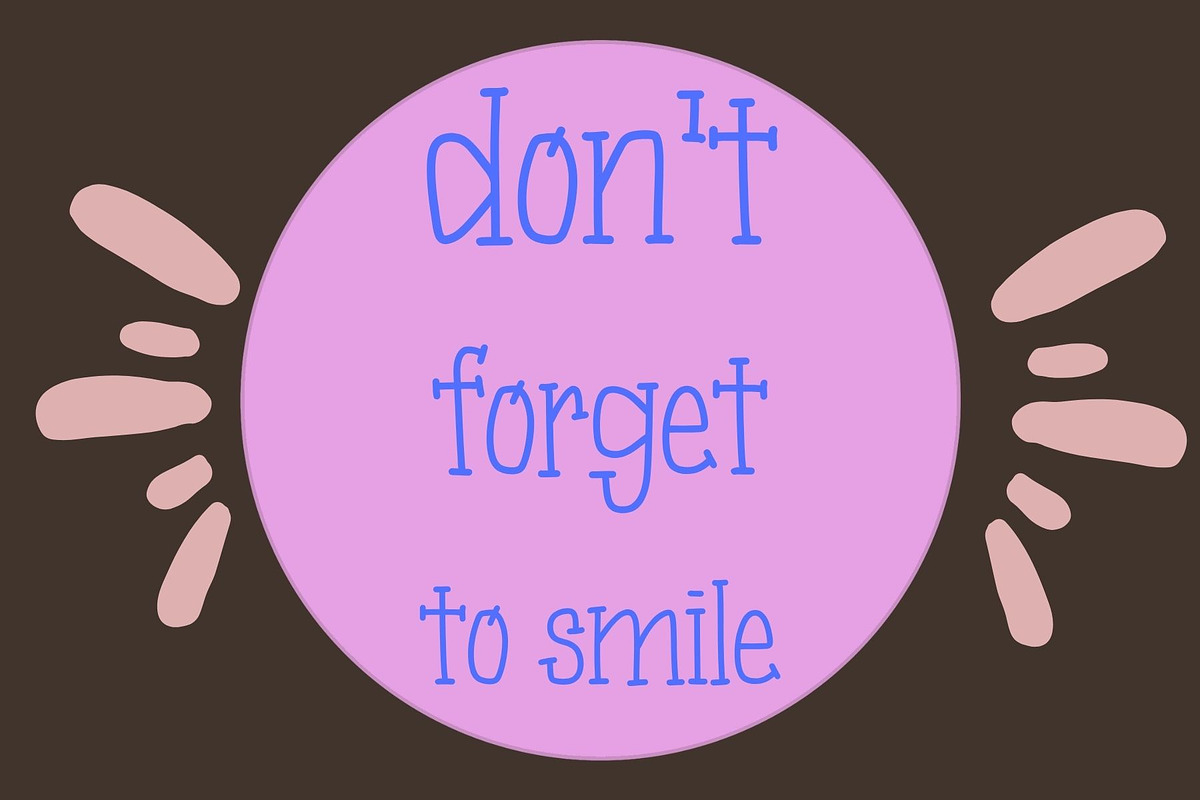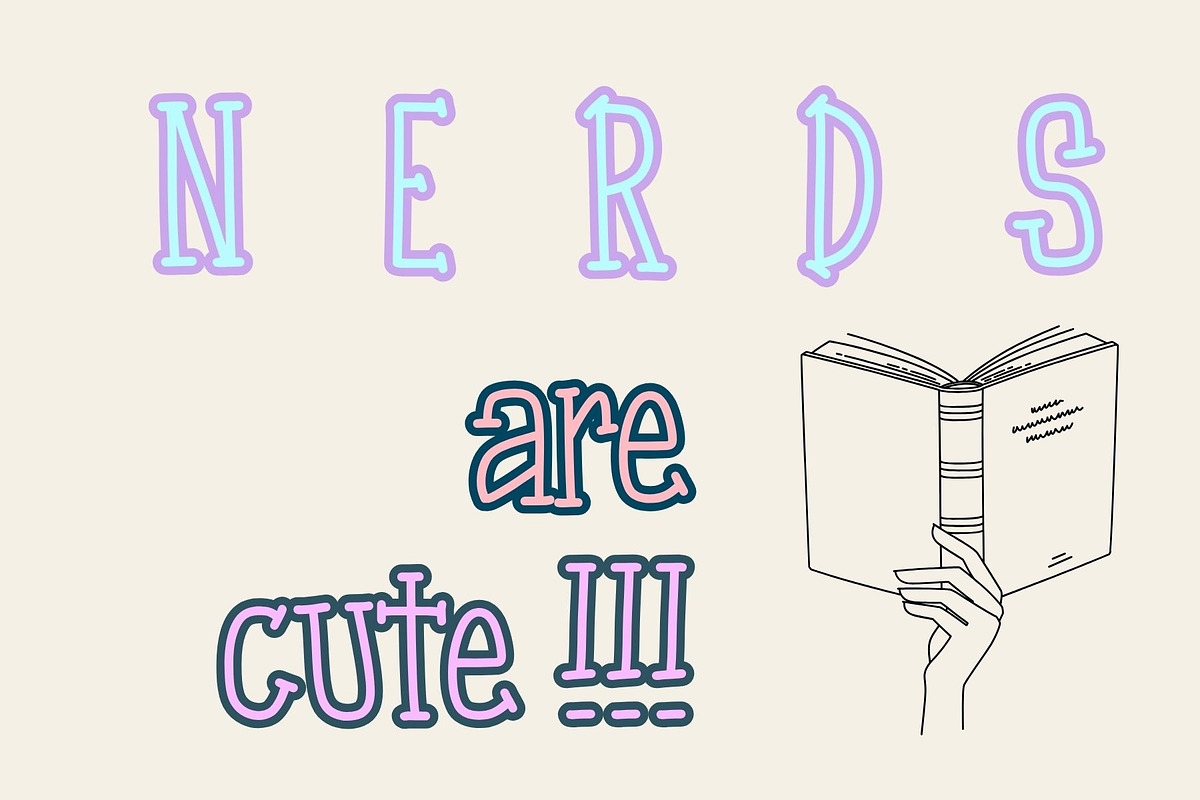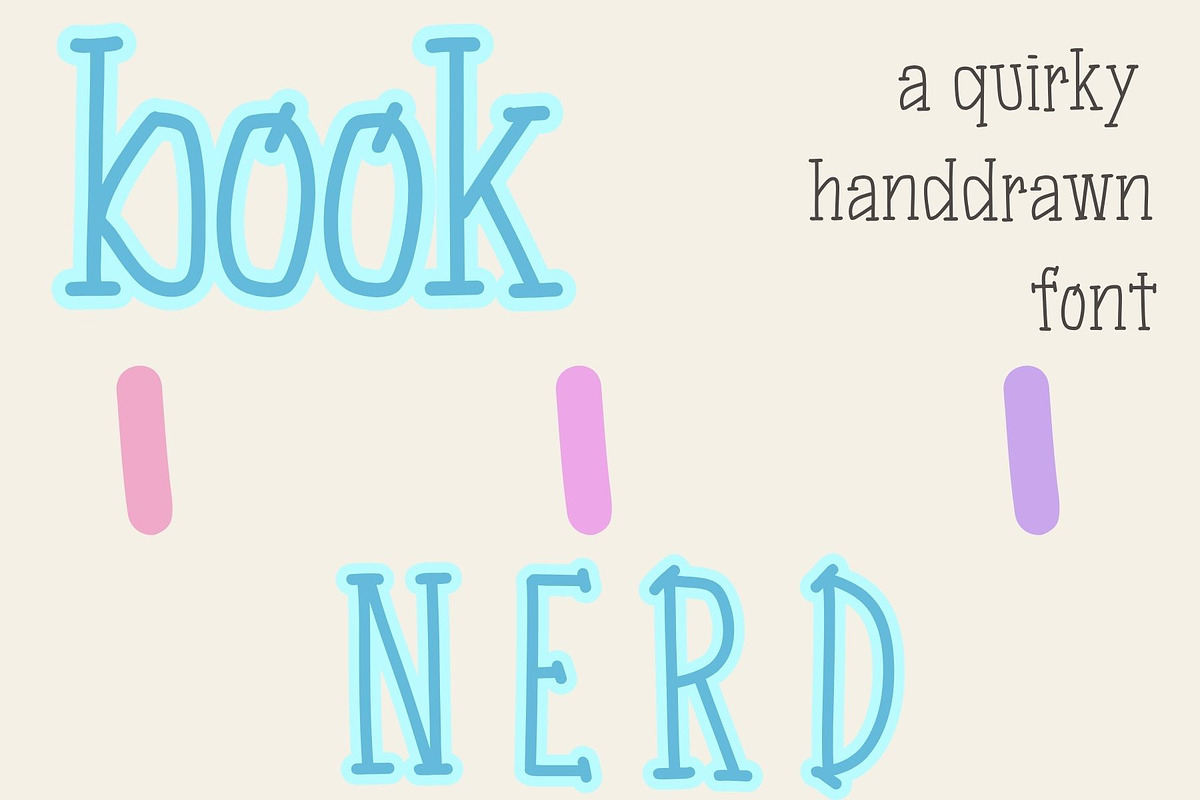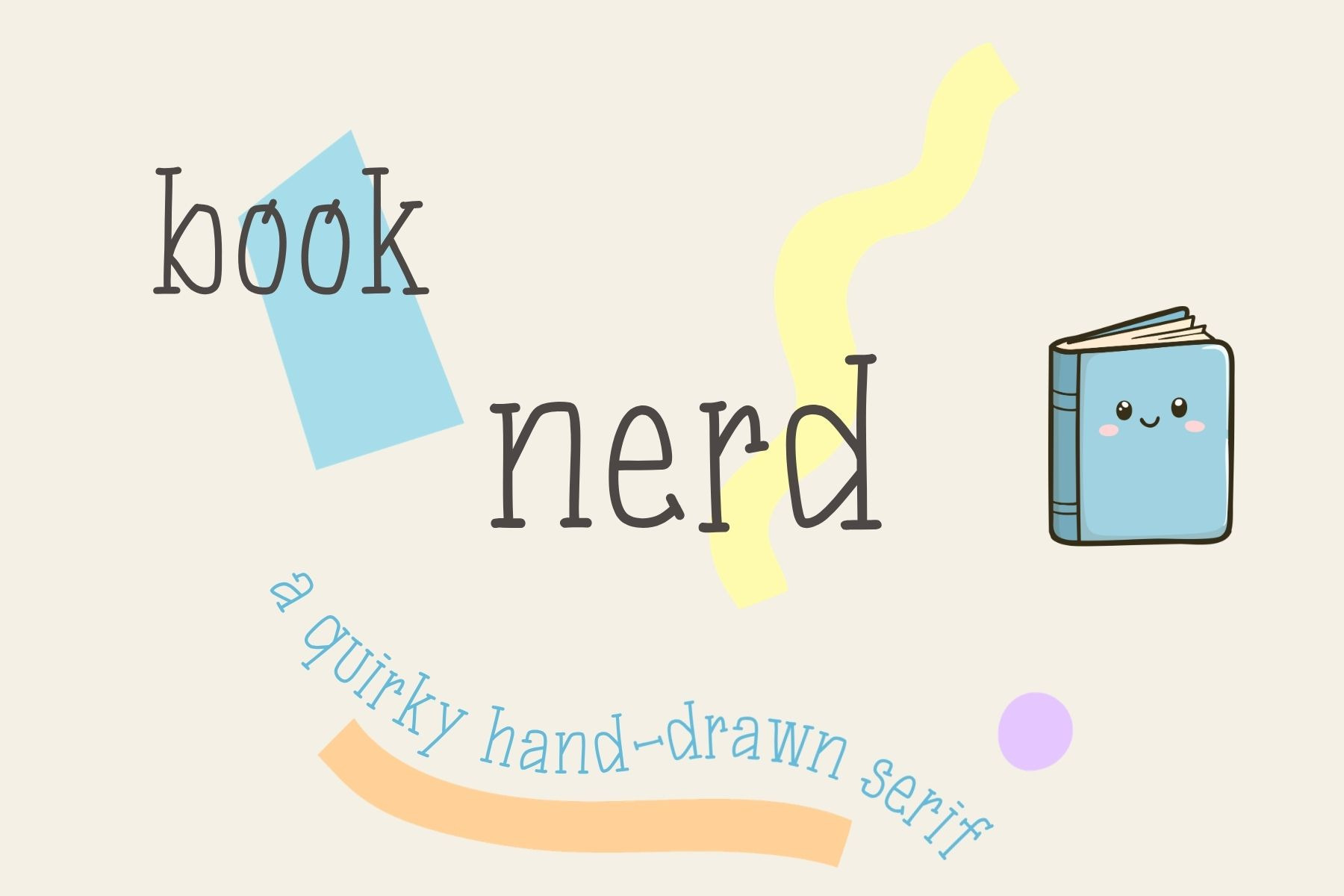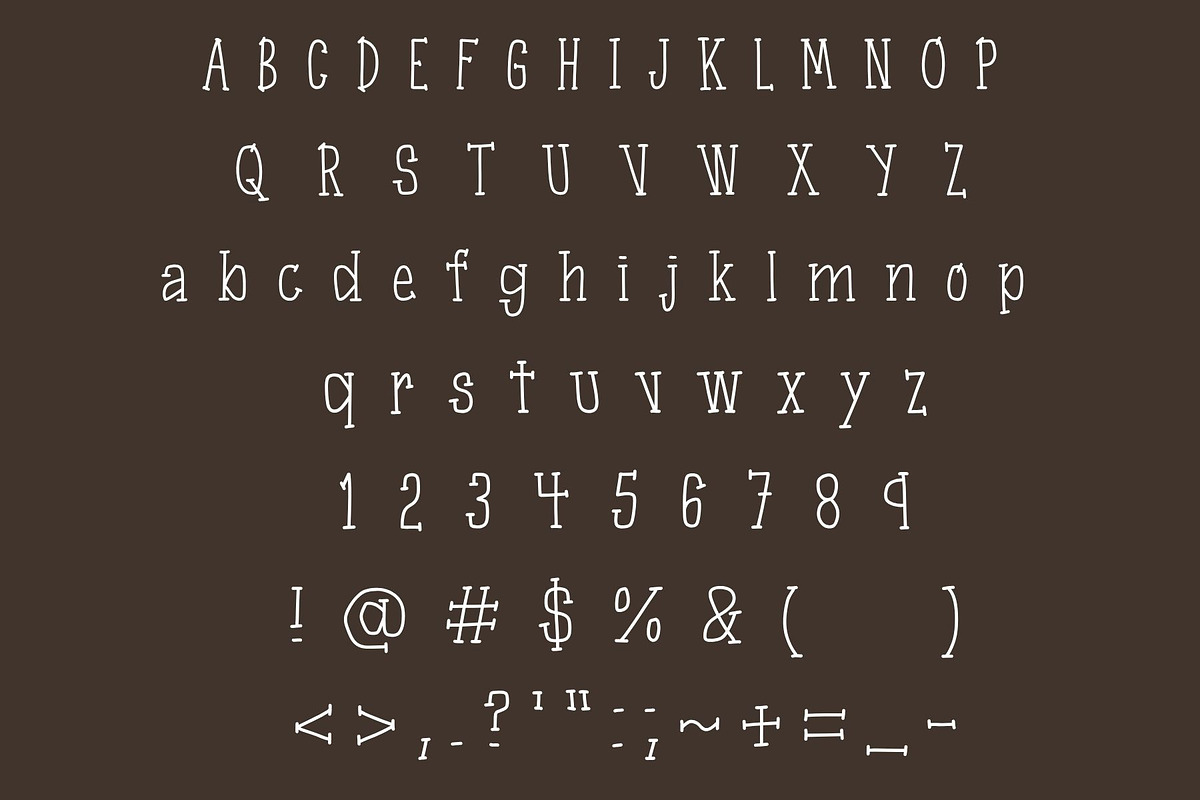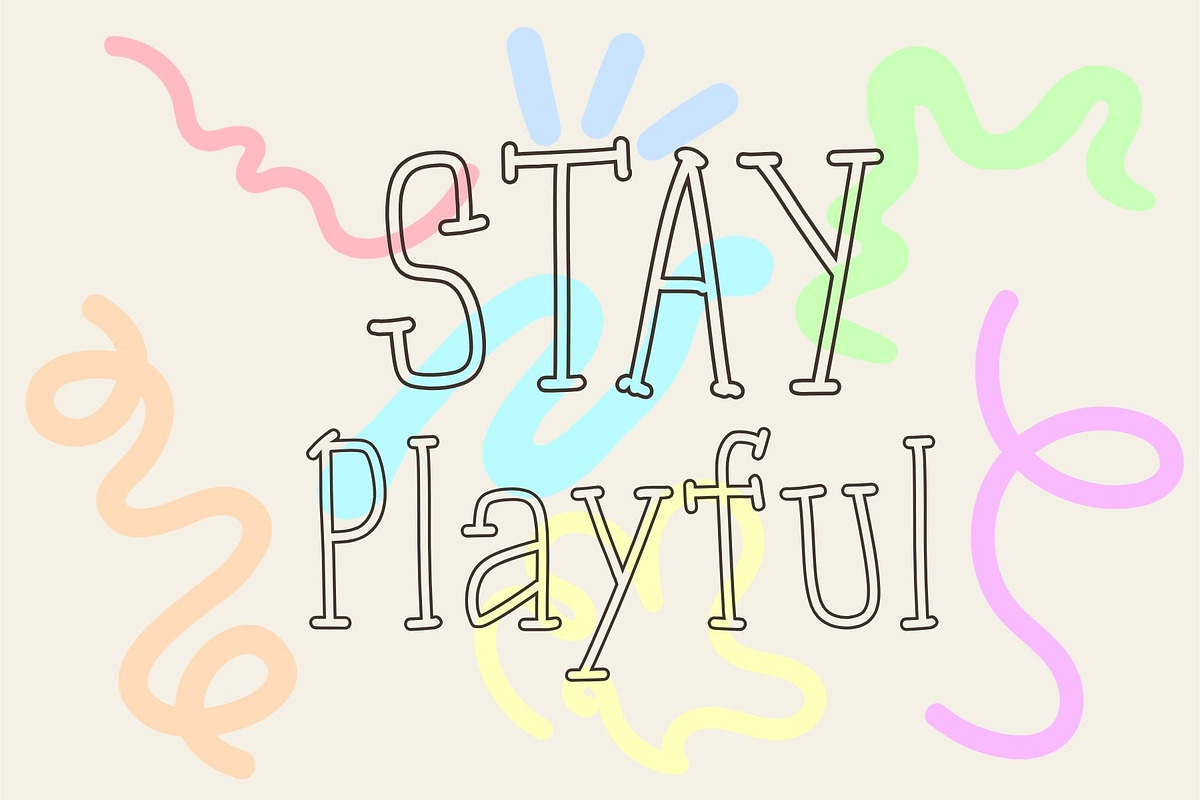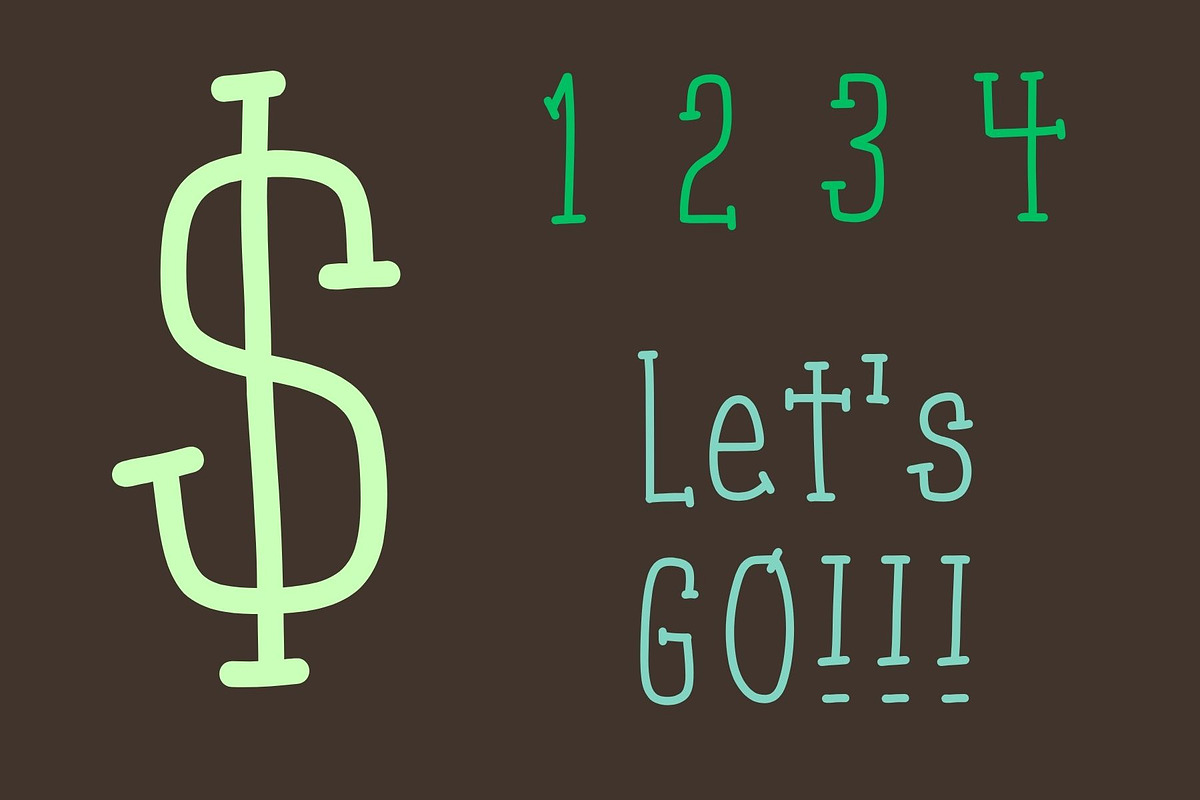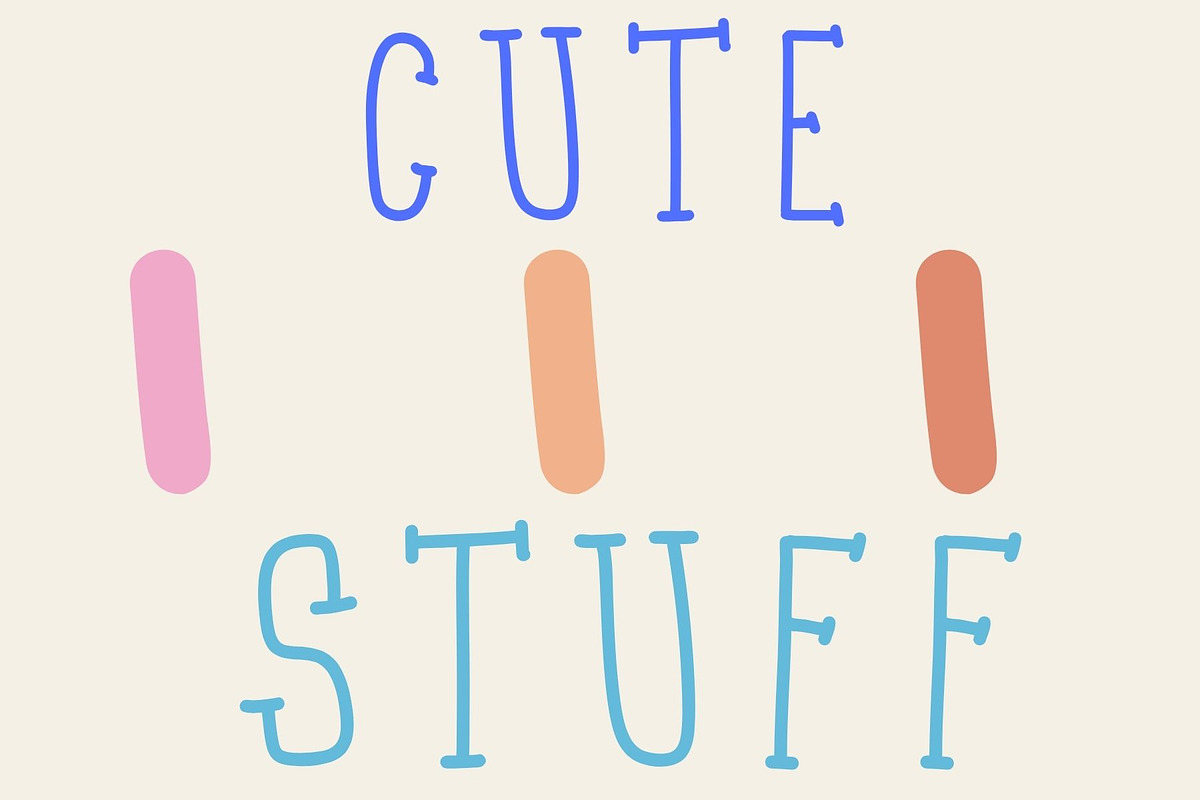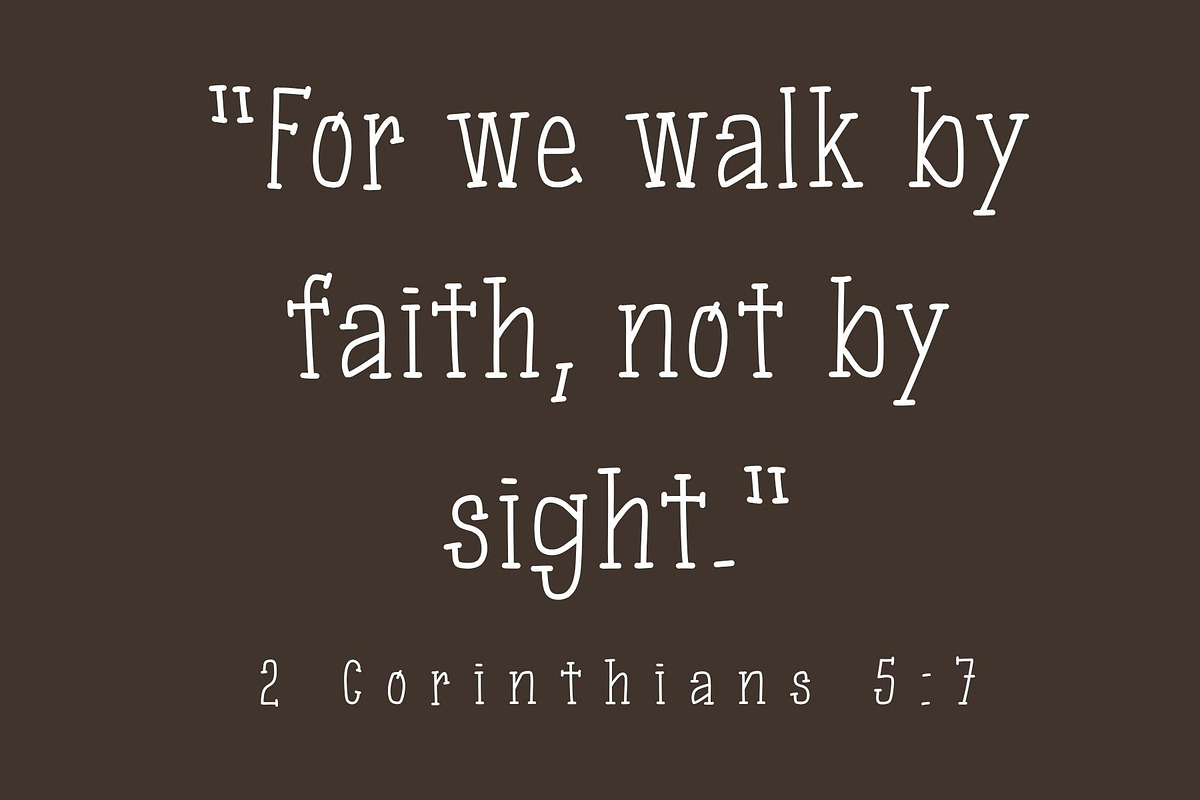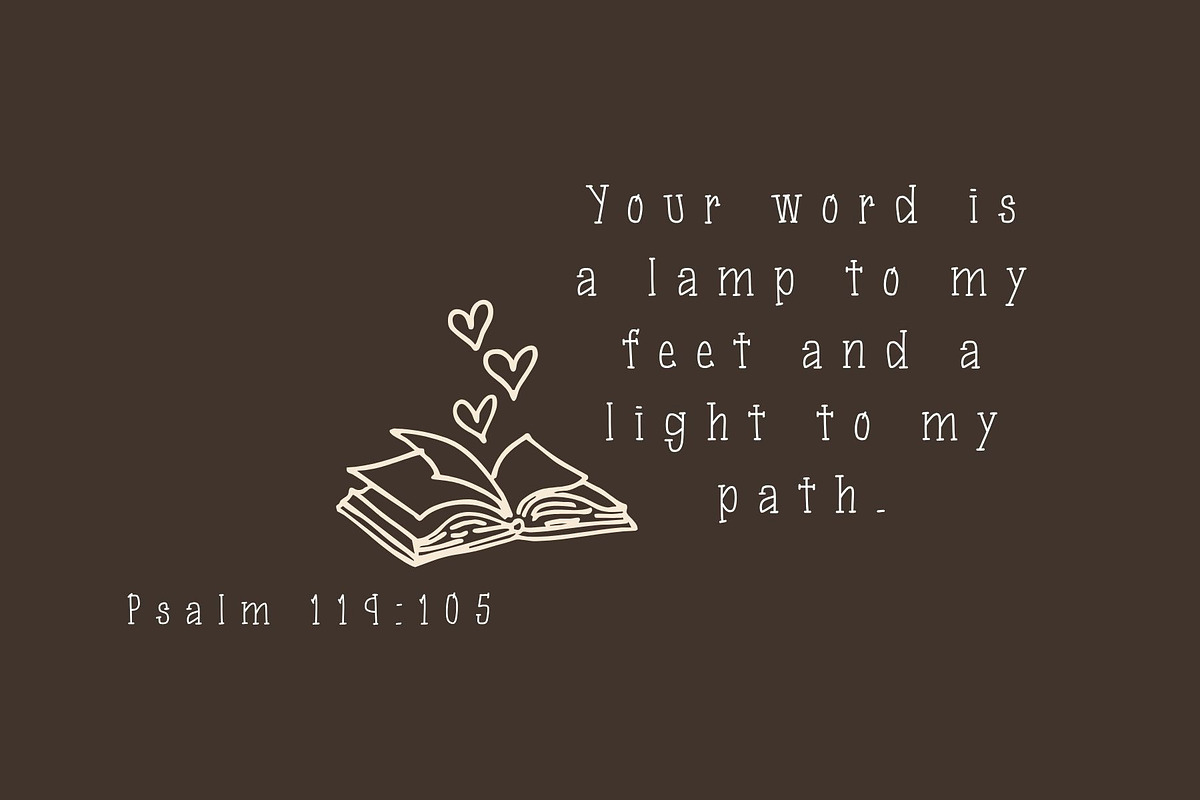
Book Nerd, a handmade serif font
full alphabet, numbers, and symbols
Book Nerd : a lovely quirky hand drawn serif font.
This font is delightfully thin and long looking, with slightly I'm-perfect serif line details.